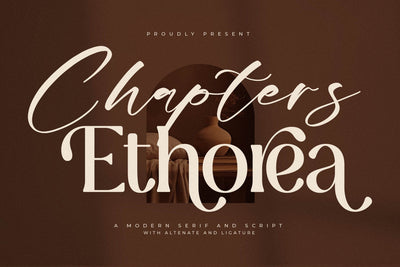
Chapters Ethorea Font Duo
Proudly present Chapters Ethorea Font Duo , created by Storytype,
A serif and script typeface that has own unique style & modern look.